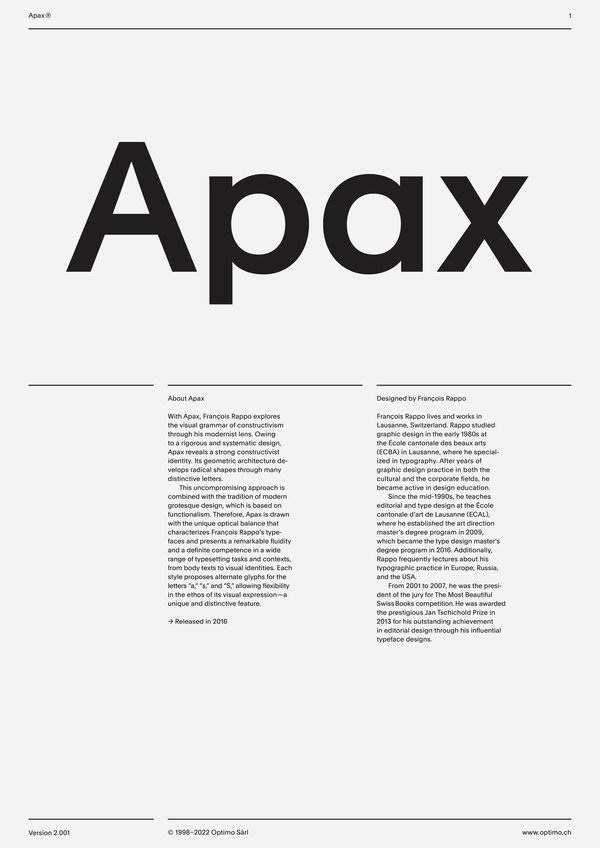
Apax
Case Sensitive Forms
This function formats the text in uppercase and adjusts spacing between all capital letters. It also applies the ‘Case Sensitive Forms’ feature which replaces certain characters with alternates that are better suited for all capital text, especially related to punctuation.
Contextual Alternates
This feature adapts the position of a glyph after its surrounding context. For instance, a dash placed between two uppercase letters or numbers will be replaced by an uppercase version of the dash, slightly higher. This feature is usually active by default in Adobe applications.
Alternate a, Ss
This feature replaces glyph(s) with stylistic alternate(s).
Alternate a
This feature replaces glyph(s) with stylistic alternate(s).
Alternate Ss
This feature replaces glyph(s) with stylistic alternate(s).
Tabular Lining Figures
Based on the proportions of the capitals, lining figures have an invariable height. With the combination of the tabular spacing format, the width of each numeral is uniformized. This feature is useful when numerals need to all lined up. It facilitates the reading of numbers set within columns or tables. As some applications don’t have access to this feature, proportional figures are set as the default choice.
Proportional Oldstyle Figures
Based on the design of the lowercase, oldstyle figures have varying ascenders and descenders. Like most of the letters, each number has an appropriate width based on its shape. The combination of oldstyle figures with proportional setting generate numerals perfectly adapted for text.
Tabular Oldstyle Figures
Based on the design of the lowercase, oldstyle figures have varying ascenders and descenders. With the combination of the tabular spacing format, the width of each numeral is uniformized. This feature is useful when numerals need to all lined up. It facilitates the reading of numbers set within columns or tables.
Fractions
With this feature, any numbers separated by a slash will automatically turn into a fraction. To fit in fraction configuration, numerals have been designed smaller and their weights have been adjusted to suit the typeface.
Lowercase math symbols
This feature activates alternate lowercase positioning of mathematical symbols.
This feature replaces any letter following a numeral with its matching superior letters. French language uses the ordinal indicators such as ‘er’ for 1er premier, while Spanish, Portuguese and Italian require the feminine and masculine ordinals ‘a,’ ‘o’ for 1º, 1ª. Ordinals are designed to match the weight of the typeface.
Slashed Zero
Originally created to avoid the confusion between the ‘0’ and the ‘O’, this feature substitutes all zeros in a selected text by a slashed form of the zero.
Multiply sign
This feature substitutes the letter “x” into the multiplication sign.
Numerators [numr]
This feature substitutes glyphs with their matching smaller alternates. The numerators are the same glyphs that are used to create fractions, their vertical position remains within the capital letters height. These glyphs are reduced in size and designed slightly heavier to keep them consistent with the rest of the font.
This feature substitutes glyphs with their matching smaller alternates and low position glyphs. The denominators are the same glyphs that are used to create fractions, their vertical position remains within the base line. These glyphs are reduced in size and designed slightly heavier to keep them consistent with the rest of the font.
This uncompromising approach is combined with the tradition of modern grotesque design, which is based on functionalism. Therefore, Apax is drawn with the unique optical balance that characterizes François Rappo’s typefaces and presents a remarkable fluidity and a definite competence in a wide range of typesetting tasks and contexts, from body texts to visual identities. Each style proposes alternate glyphs for the letters “a,” “s,” and “S,” allowing flexibility in the ethos of its visual expression—a unique and distinctive feature.